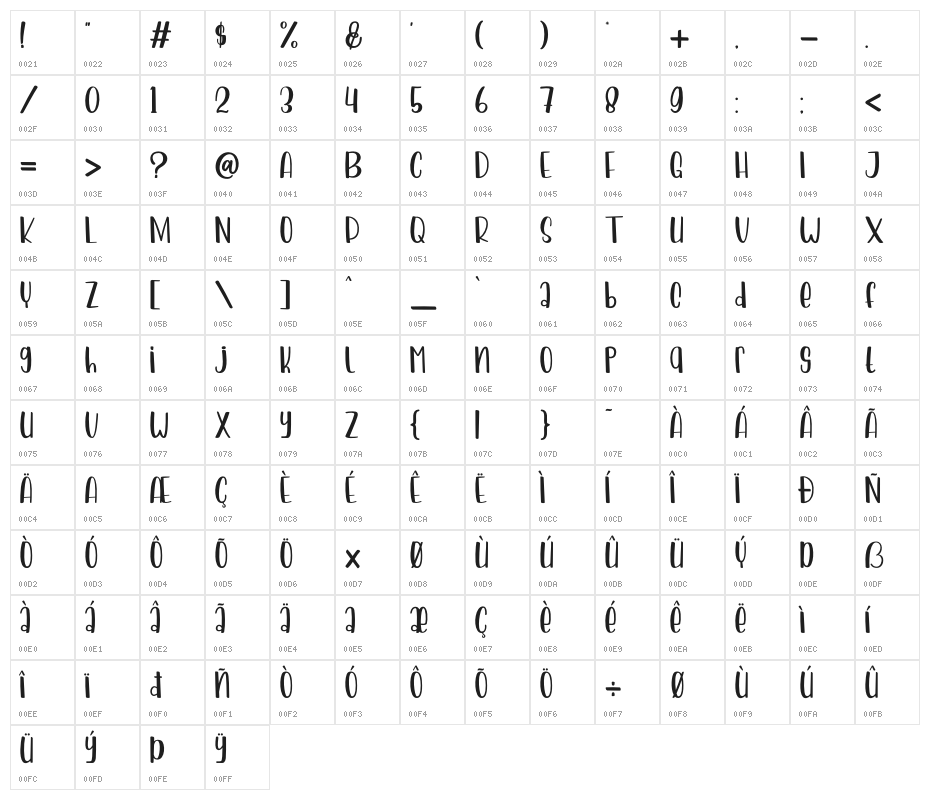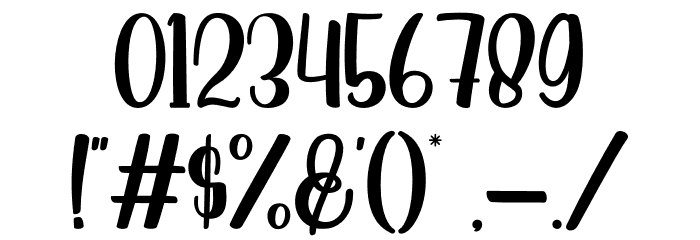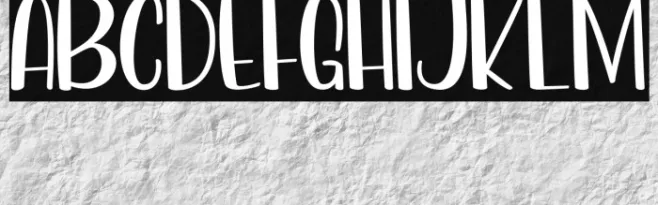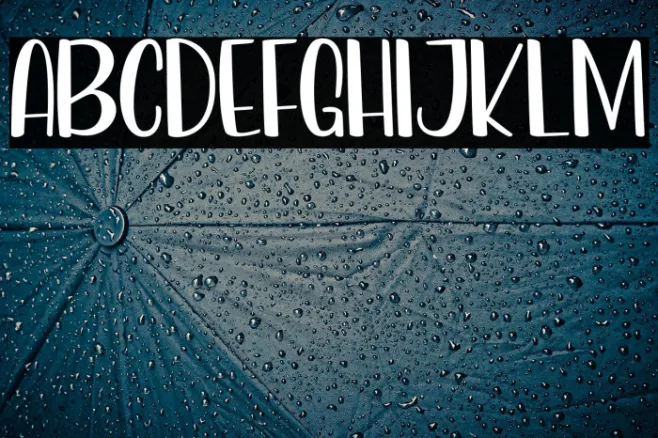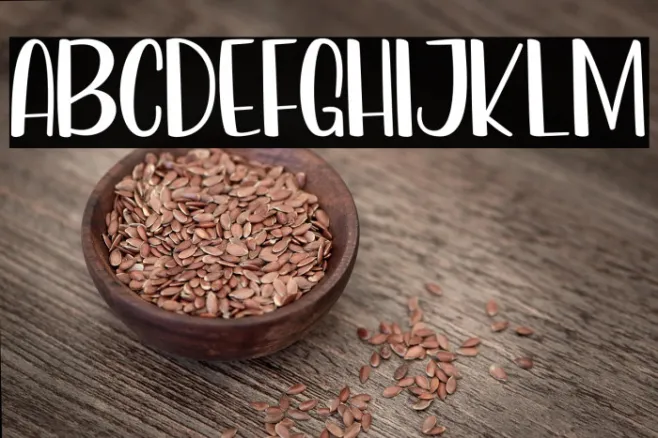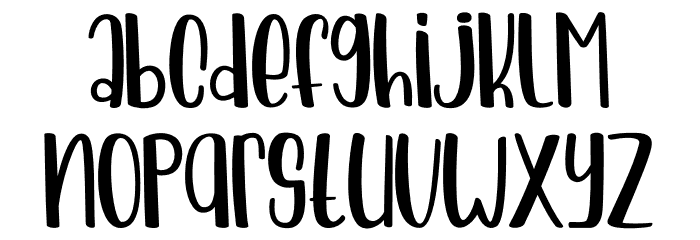
Hello Cactus Font
Hello Cactus Description
This playful and whimsical font features a handwritten style with a bold and lively appearance. The characters are slightly irregular, giving it a charming and casual feel. The uppercase letters are tall and narrow, while the lowercase letters maintain a consistent height with a slight slant, adding to the font's dynamic nature. The numbers and special characters are designed to match the overall style, ensuring a cohesive look. The font's unique personality makes it suitable for projects that require a fun and engaging touch.
| Proposed Projects | Ideal for greeting cards, children's books, playful branding, and social media graphics. |